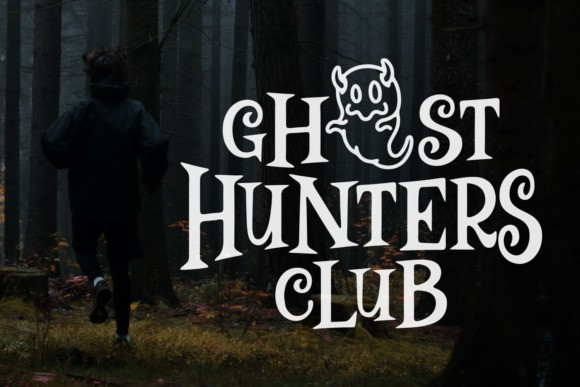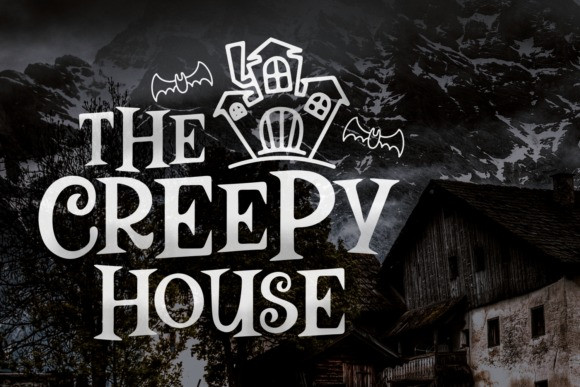
The Creepy House Font
The Creepy House Font is a weird, yet fun display font with a spooky feel. It will turn any Halloween-themed project into a stand out!